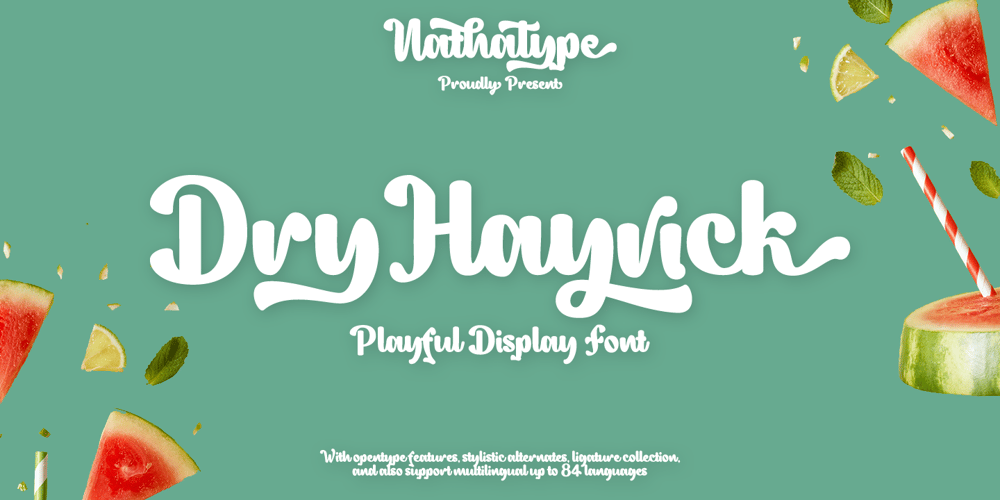
Dry Hayrick Font Family was designed by Donis Miftahudin and published by Nathatype. Dry Hayrick contains 1 styles and family package options. Ready to enhance your branding? Looking for that “something” that’ll make your audience go WOW and clients get on board immediately? If you need to create a big, bold logo for your business, work on a poster for an event, or whatever your project may be-then we’ve got what you want.Dry Hayrick- A Display FontDry Hayrick is a display font. was fully thought out to easily meld inside your designs. An excellent choice to add the right amount of playfulness. This custom-made font was specifically designed to fit whatever you need! The best choice for your logo, book cover, poster, t-shirt, branding, and advertisement needs.Our font always includes Multilingual Support to make your branding reach a global audience. Features: Ligatures Stylistic Set Swahes PUA Encoded Numerals and Punctuation Thank you for downloading premium fonts from Nathatype